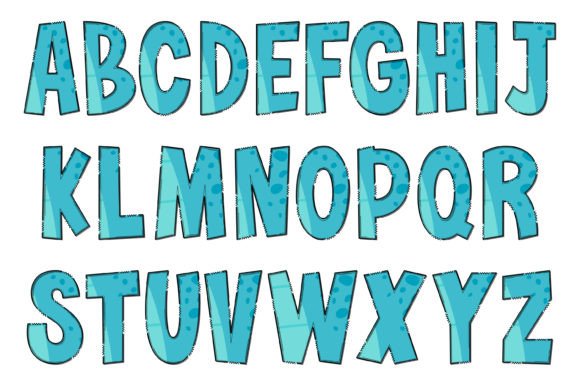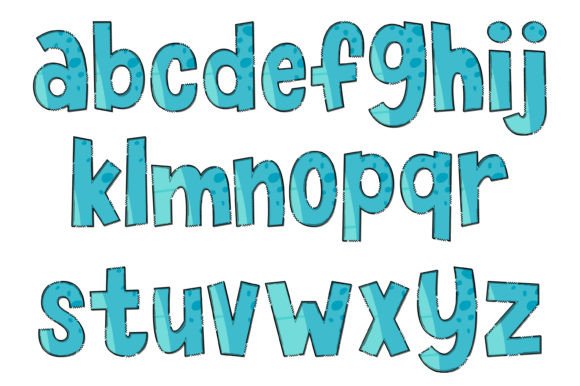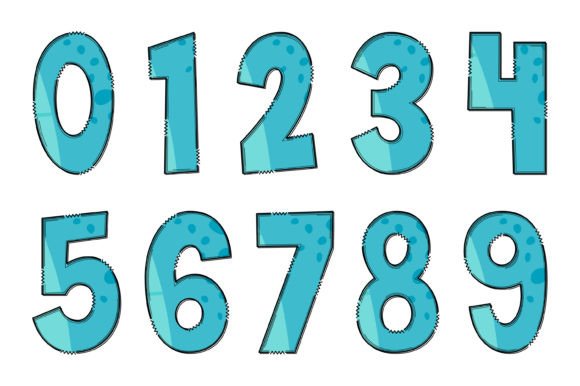
Unleash the Prehistoric Charm with Blue Dinous Font
In the realm of typography, few fonts manage to capture the essence of a bygone era while exuding a sense of modernity. Blue Dinous font is one such remarkable typeface that seamlessly blends the mystique of the prehistoric world with a contemporary aesthetic. This captivating font is set to revolutionize the way designers and crafters approach their creative projects, offering a unique combination of ancient allure and modern style.
The Genesis of Blue Dinous Font
Blue Dinous font is inspired by the majestic creatures that once ruled the Earth – dinosaurs. Its deep blue hue is reminiscent of the clear skies and oceans that these prehistoric beings roamed. The font’s intricate details are meticulously crafted to reflect the ruggedness and complexity of the ancient world, making it a standout choice for designers seeking to add a touch of nostalgia and wonder to their work.
Key Features of Blue Dinous Font
- Deep Blue Hue: The font’s distinctive blue color gives it a unique and captivating appearance that sets it apart from more traditional typefaces.
- Intricate Details: The intricate details and patterns woven into the font’s design evoke the complexity and mystery of the prehistoric era.
- Modern Twist: Despite its ancient inspiration, Blue Dinous font boasts a clean and modern aesthetic that ensures it remains versatile and relevant.
Ideal Applications for Blue Dinous Font
Blue Dinous font’s versatility makes it suitable for a wide range of creative projects. Some of the ideal applications for this captivating typeface include:
- Children’s Books: Add a touch of prehistoric magic to storybooks and early learning materials, making them more engaging and visually appealing to young readers.
- Posters and Flyers: Create eye-catching promotional materials that stand out with the unique charm of Blue Dinous font.
- Invitations and Greeting Cards: Elevate your event invitations and greeting cards with a sophisticated yet playful touch that Blue Dinous font offers.
To make the most of Blue Dinous font, consider the following tips:
- Pair with Complementary Fonts: Combine Blue Dinous font with simpler, sans-serif fonts to create visual contrast and hierarchy in your designs.
- Experiment with Colors: While the deep blue hue of the font is striking, don’t be afraid to experiment with other colors to match your project’s theme or brand.
- Play with Textures and Patterns: Enhance the prehistoric feel of Blue Dinous font by incorporating textures and patterns reminiscent of ancient times.
Blue Dinous font is a game-changer for designers and crafters looking to infuse their projects with a sense of prehistoric wonder and modern flair. Its unique blend of deep blue hue, intricate details, and contemporary style makes it an invaluable addition to any creative toolkit. Whether you’re working on children’s books, posters, invitations, or greeting cards, Blue Dinous font offers endless possibilities for creativity and expression. Embrace the prehistoric charm with Blue Dinous font and take your designs to a whole new level.